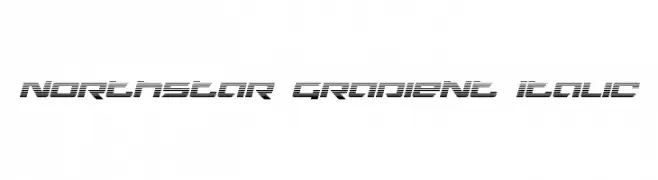
A futuristic, bold font with a distinctive halftone effect and geometric design.
A modern, geometric outline font with sharp angles and a futuristic style.
A bold, italicized font with a futuristic halftone effect and geometric design.
A bold, high-contrast serif font with sharp edges and elegant curves.
A hand-drawn, organic font with uneven strokes and a casual, approachable feel.
A whimsical script font with tall, narrow uppercase and flowing cursive lowercase letters.
A bold, modern font with strong vertical lines and subtle curves.
A modern outlined font with clean, geometric lines and a cohesive design.
A bold, stencil-style font with geometric precision and industrial appeal.
A bold, shadowed font with a strong, geometric design.
A bold slab serif font with strong, block-like serifs and a cohesive design.
A bold, outlined geometric font with a modern and clean appearance.
A dynamic and fluid handwritten font with elegant, flowing strokes.
An elegant script font with flowing, interconnected letters and a sophisticated style.
A bold, stencil-style font with a military-inspired design.
A modern, geometric outlined font with a futuristic style.
A bold, geometric font with a three-dimensional shadow effect.
A modern, geometric sans-serif font with clean lines and bold presence.
A whimsical handwritten font with tall, narrow letters and playful curves.
A fluid and elegant handwritten font with smooth, flowing lines.
A modern, geometric font with clean lines and balanced spacing.
An elegant, flowing script font with interconnected, cursive strokes.
A dynamic and elegant cursive script font with a flowing style.
A fluid, handwritten style with dynamic strokes and a casual, artistic flair.
A bold, 3D extruded font with a vintage yet modern appeal.
A modern, geometric font with bold and thin strokes, featuring a 3D effect.
A dynamic and elegant script font with flowing, cursive letterforms.
A bold, cursive script font with flowing, connected letters.
A bold, vintage serif font with tall, narrow letters and elegant serifs.